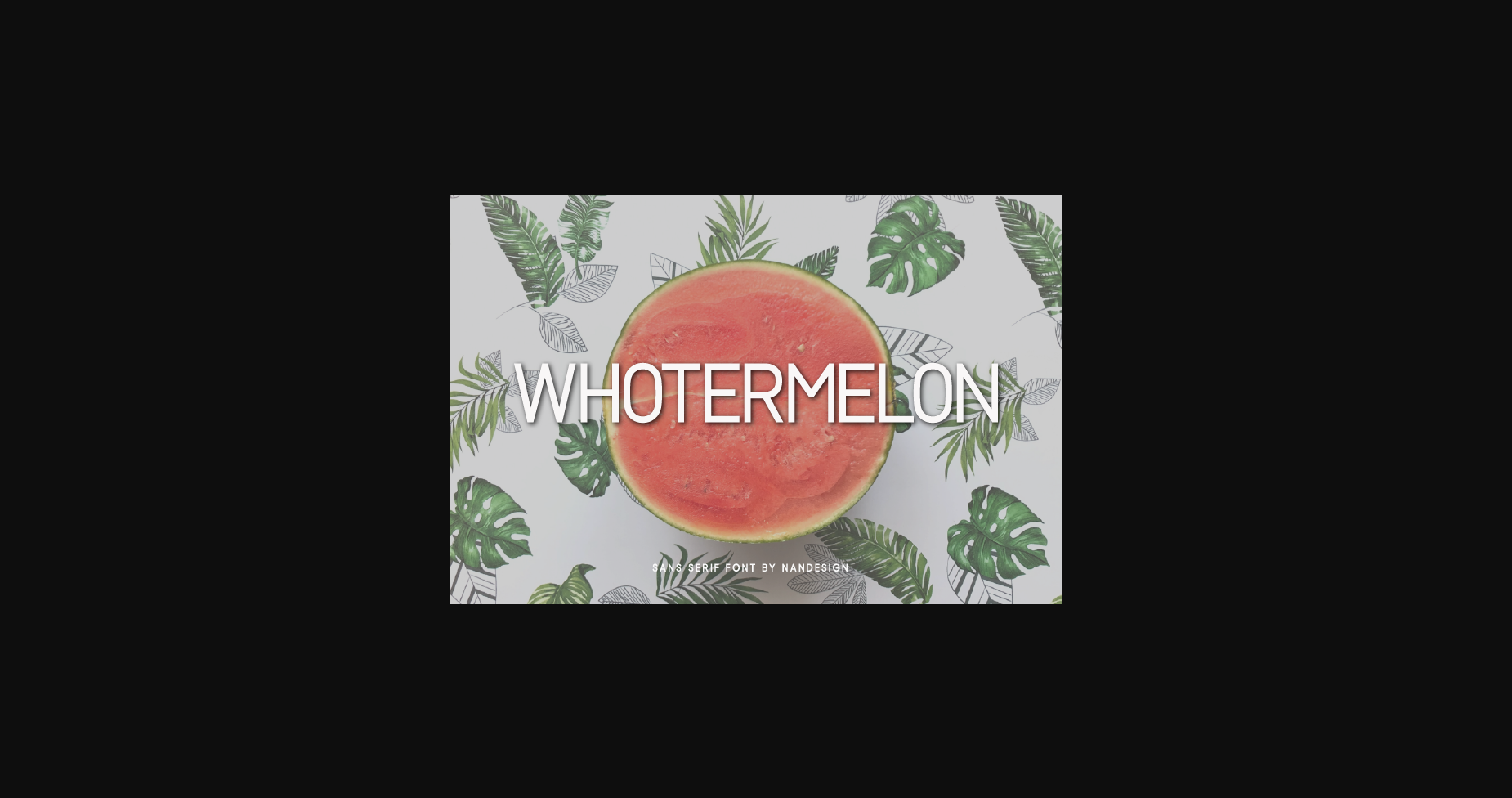
Whotermelon Font
About Whotermelon Font
Whotermelon is a clean and neat sans serif font. It can easily be matched to an incredibly large set of projects, so add it to your creative ideas and notice how it makes them stand out!